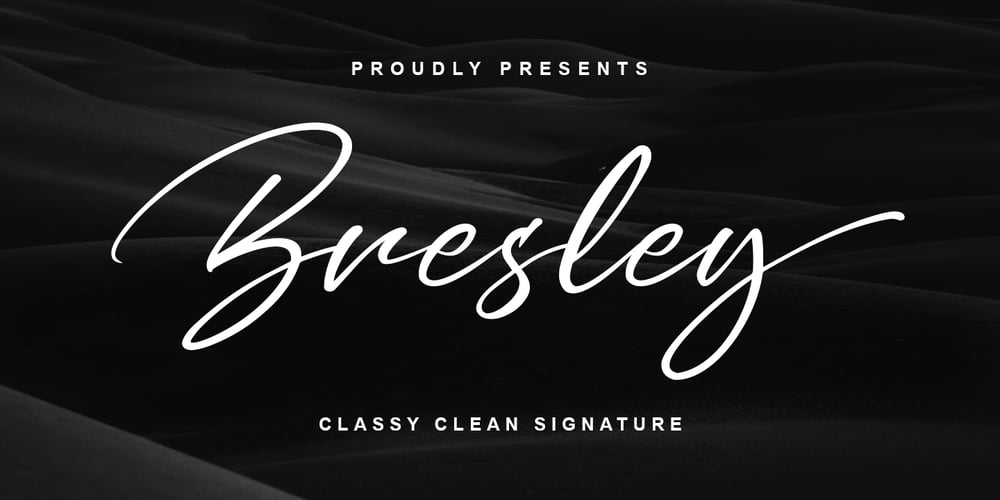
Bresley
Bresley font
Bresley Font Family was designed by Bangkit Tri Setiadi and published by Blankids. Bresley contains 1 styles and family package options. Introducing a new clean signatures script called Bresley. Bresley came with open type features such contextual alternates, stylistic alternates, ligature, good for signature logo, wedding invitation, romantic quote, logotype, poster, social media kit, book cover, tshirt design, packaging and any more.